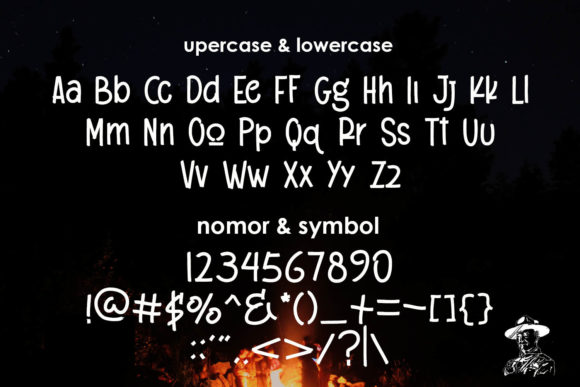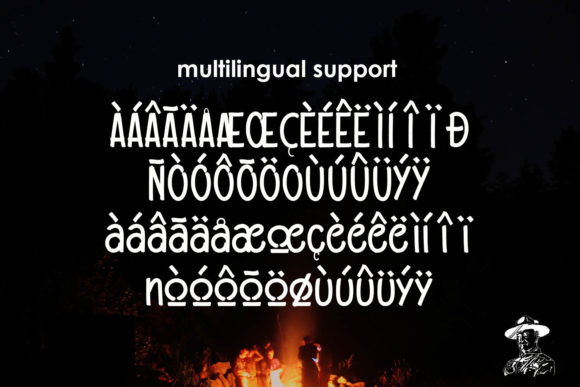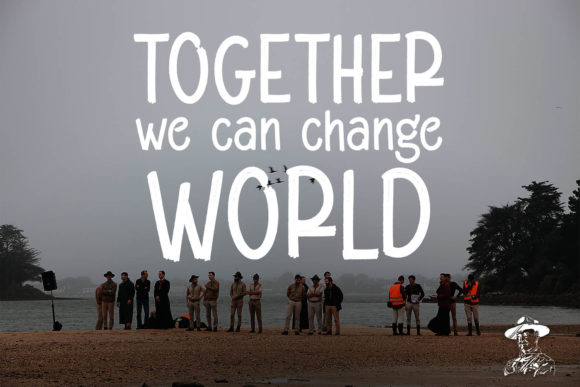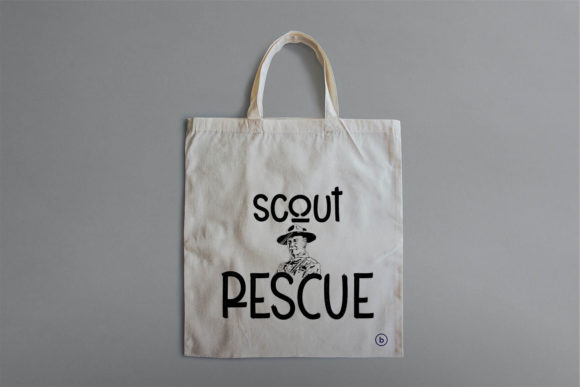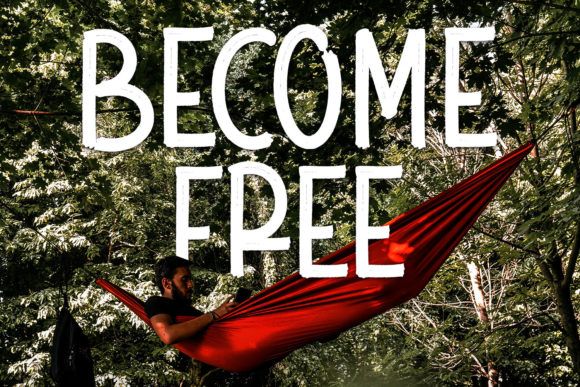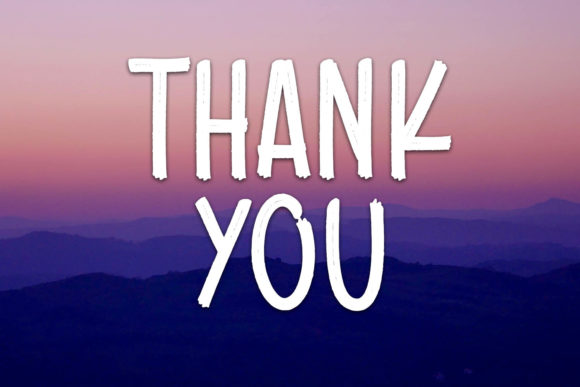
Introduction to Scoutkind Font
Scoutkind is a quirky brushed display font.
Casual and relaxed, this font is the perfect fit for each of your informal designs .
Key Features of Scoutkind Font
Why Choose Scoutkind Font?